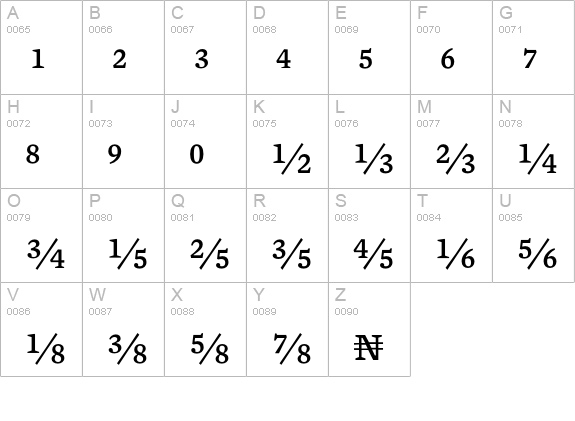
Mercury Numeric G4 Roman Font Details
Introducing Mercury Numeric G4 Roman font, a sleek and modern typeface designed to make your projects stand out. With its clean lines and elegant curves, Mercury Numeric G4 Roman is perfect for a wide range of design applications, from branding to editorial design. This versatile font exudes professionalism and sophistication, making it a top choice for designers looking to make a lasting impression. Best of all, Mercury Numeric G4 Roman is available for free download at FontsMarket.com. Whether you're working on a print project, website design, or any other creative endeavor, this font is sure to elevate your work to the next level. Don't miss out on the opportunity to enhance your designs with the timeless beauty of Mercury Numeric G4 Roman font. Download it today and unleash your creativity!